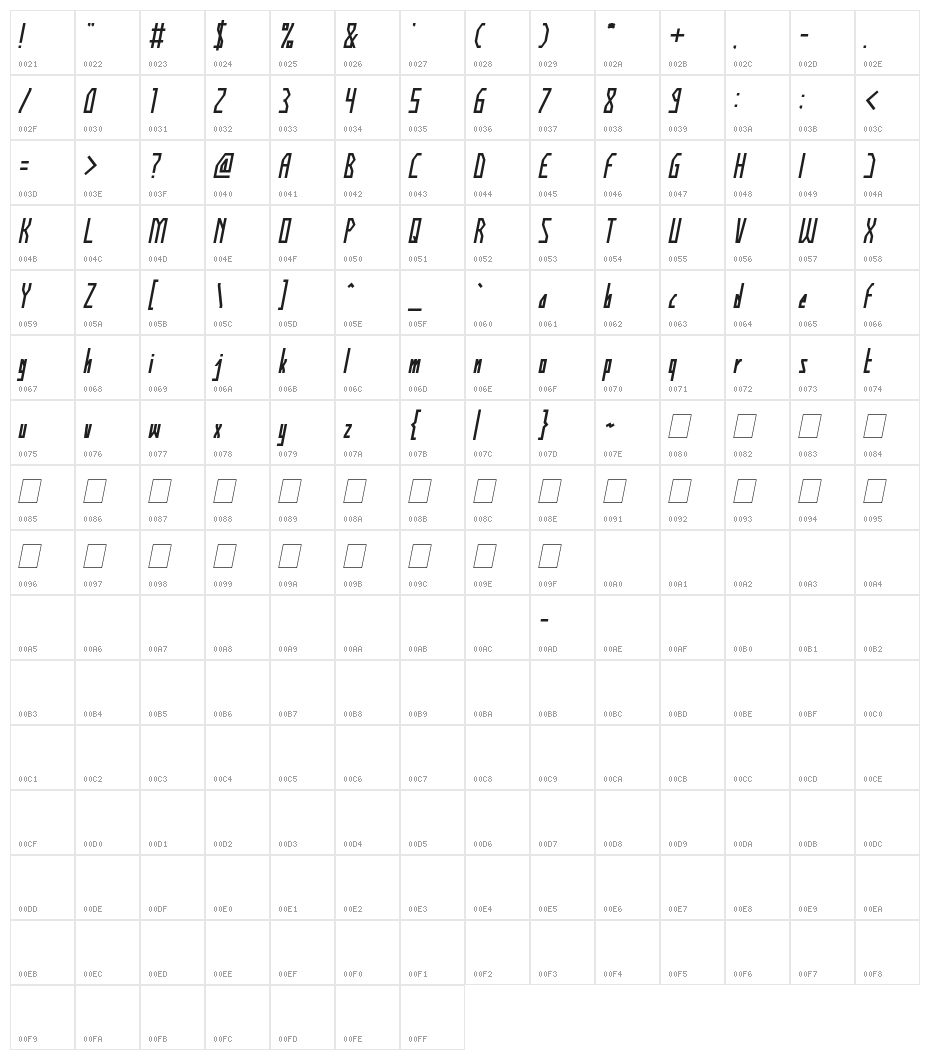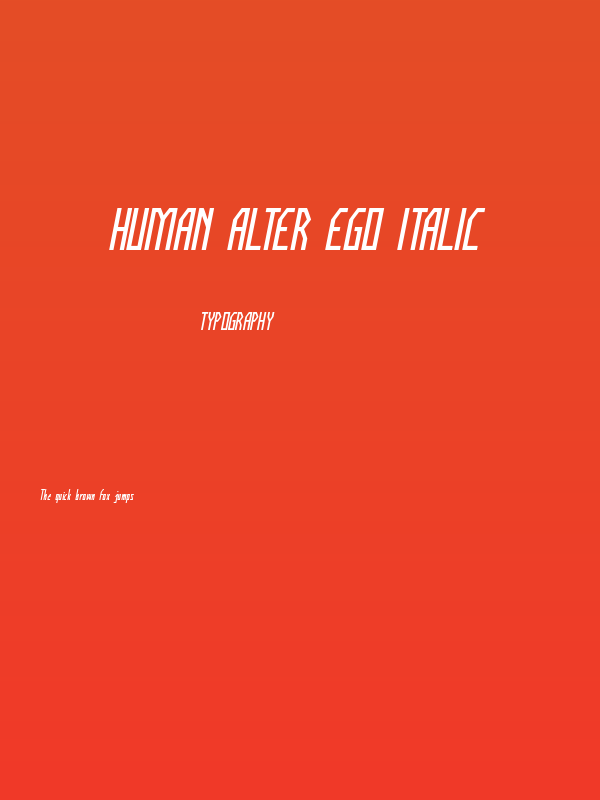
HUMAN ALTER EGO Italic Font
HUMAN ALTER EGO Italic Description
This font features a bold and angular design with a distinct italic slant, giving it a dynamic and forward-moving appearance. The uppercase letters are tall and narrow, while the lowercase letters maintain a consistent style with slightly more rounded edges. The numerals are uniform in height, complementing the overall geometric structure. Special characters are crafted with the same angular precision, ensuring a cohesive look across all glyphs. This font's unique style makes it stand out, suitable for projects that require a modern and edgy aesthetic.
| Proposed Projects | Ideal for branding, posters, and any design needing a modern, edgy look. |